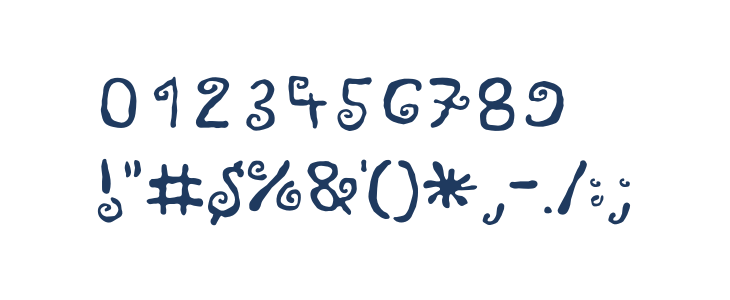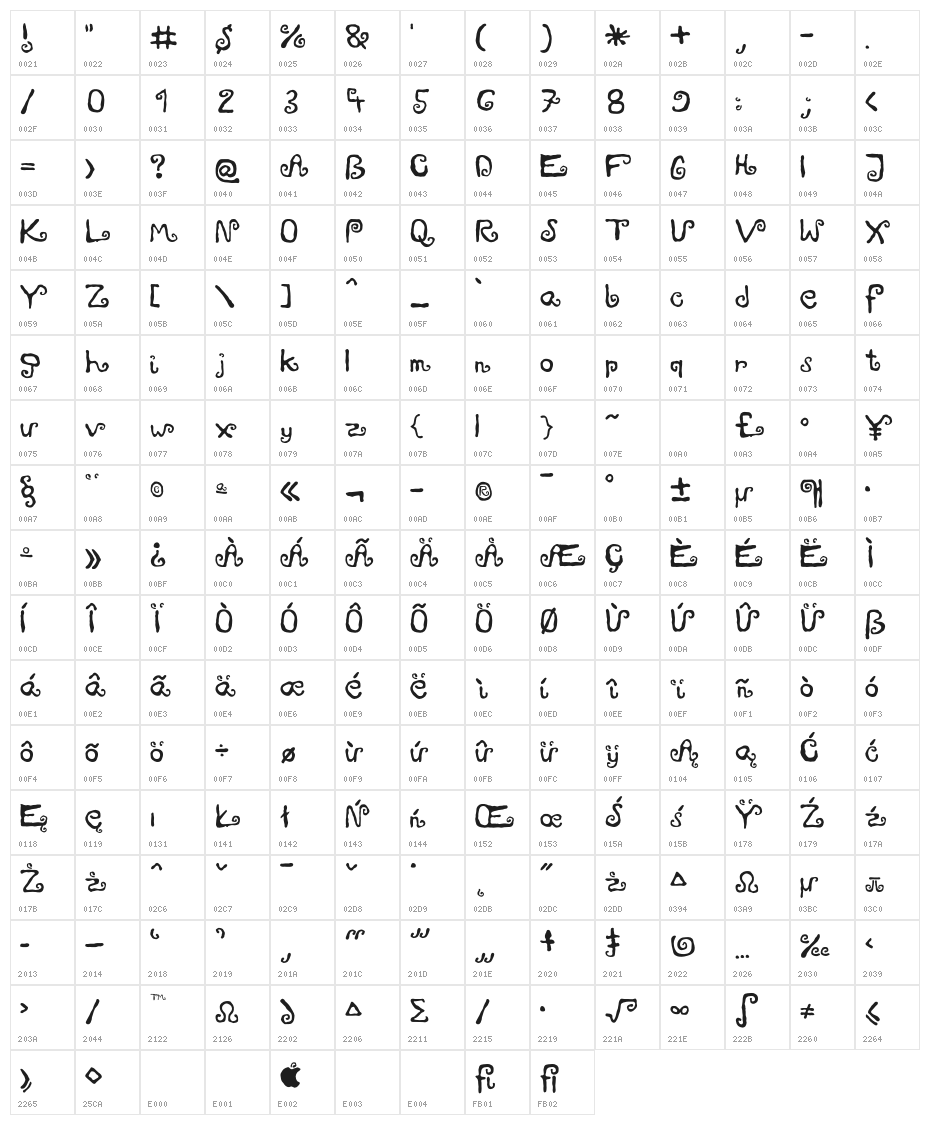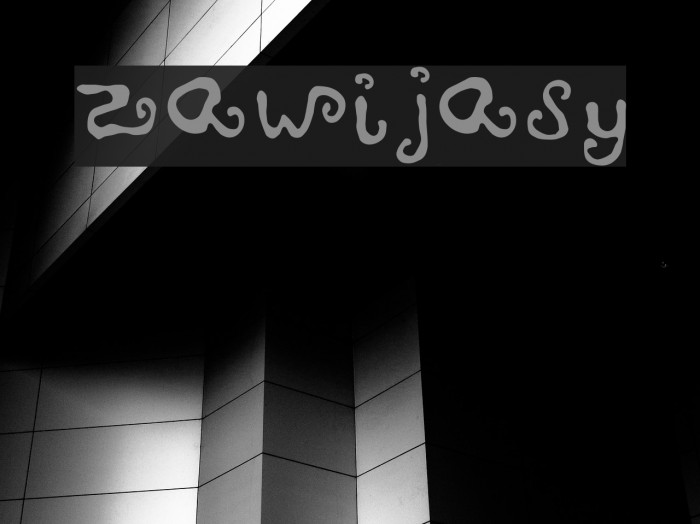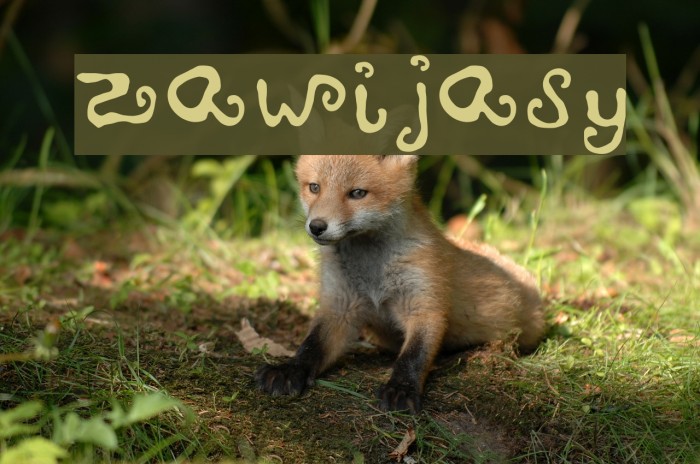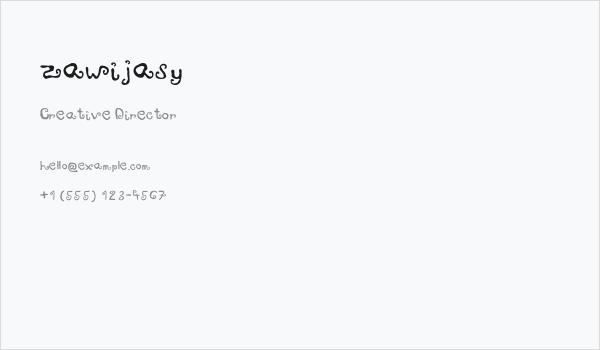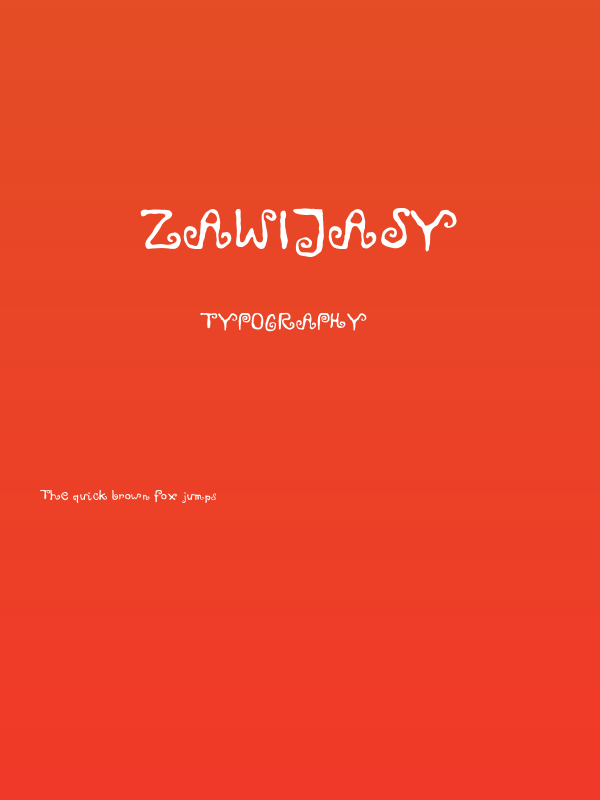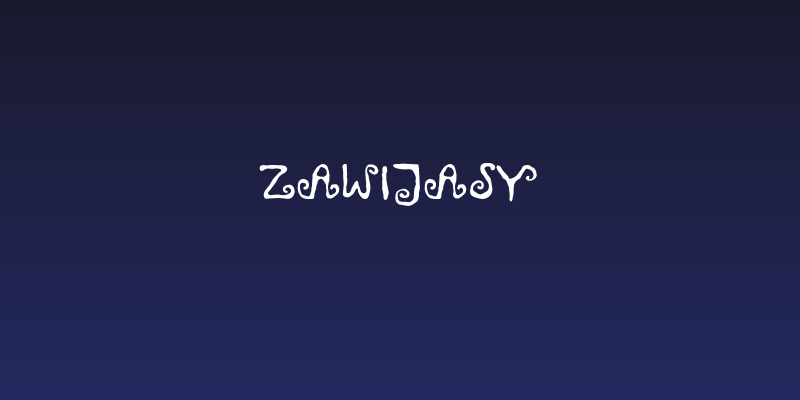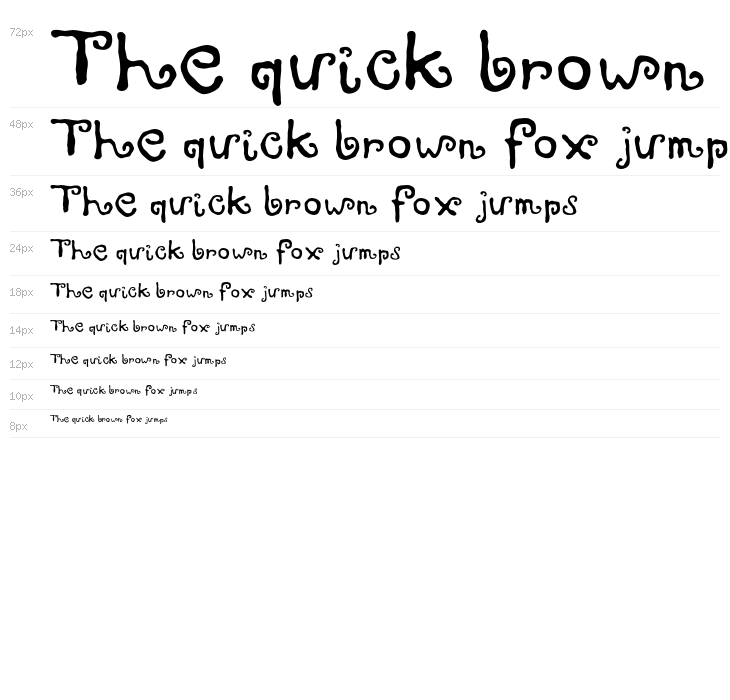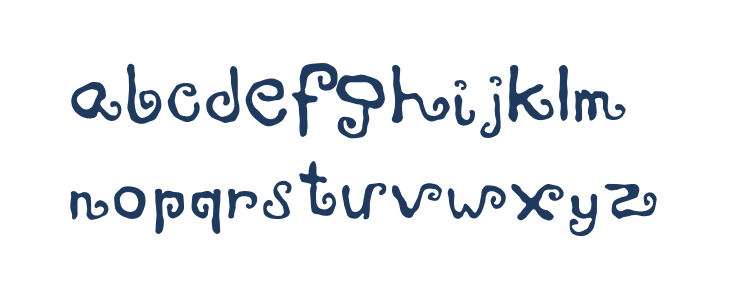
zawijasy Font
zawijasy Description
This whimsical and playful font features a unique, hand-drawn style with swirling, curly elements that give each character a lively and animated appearance. The letters are bold and have a slightly irregular form, adding to their charm and artistic flair. The uppercase and lowercase letters maintain a consistent style, with the lowercase being slightly more compact. Numbers and special characters follow the same design, ensuring a cohesive look across all text. The font's distinctiveness makes it stand out, ideal for creative projects that require a touch of fun and personality.